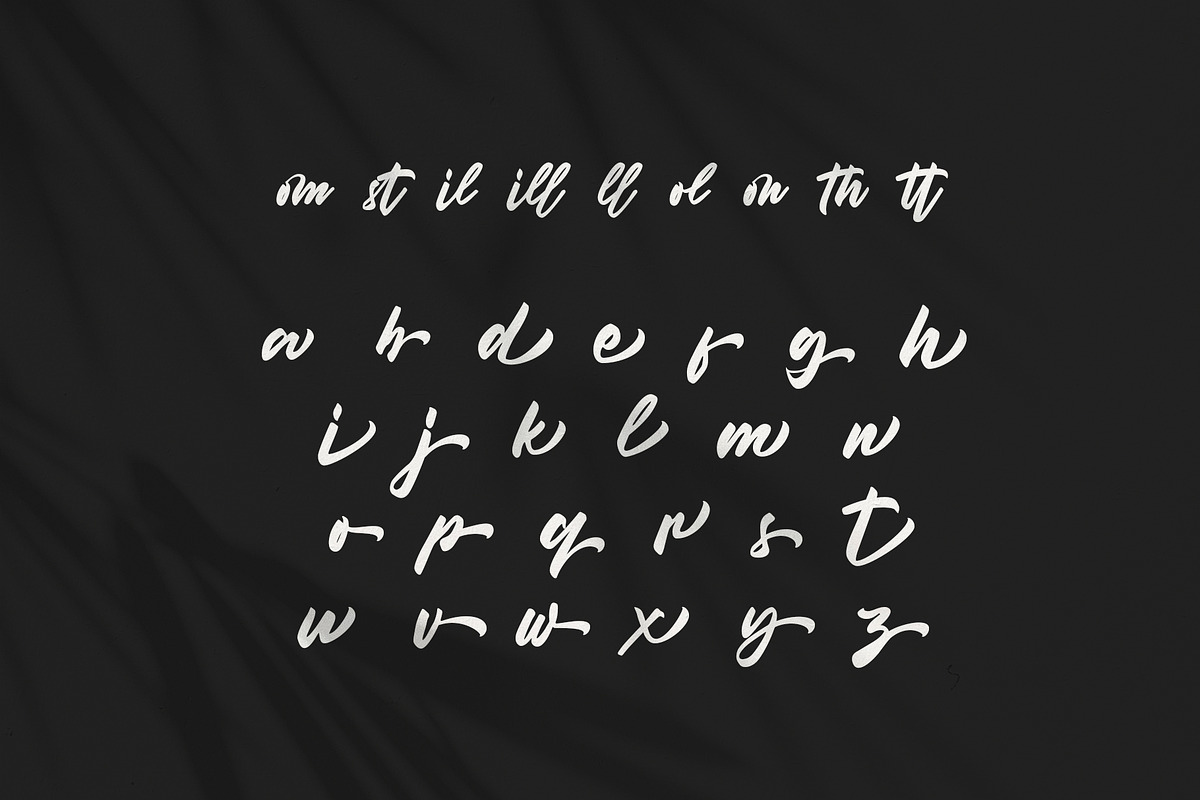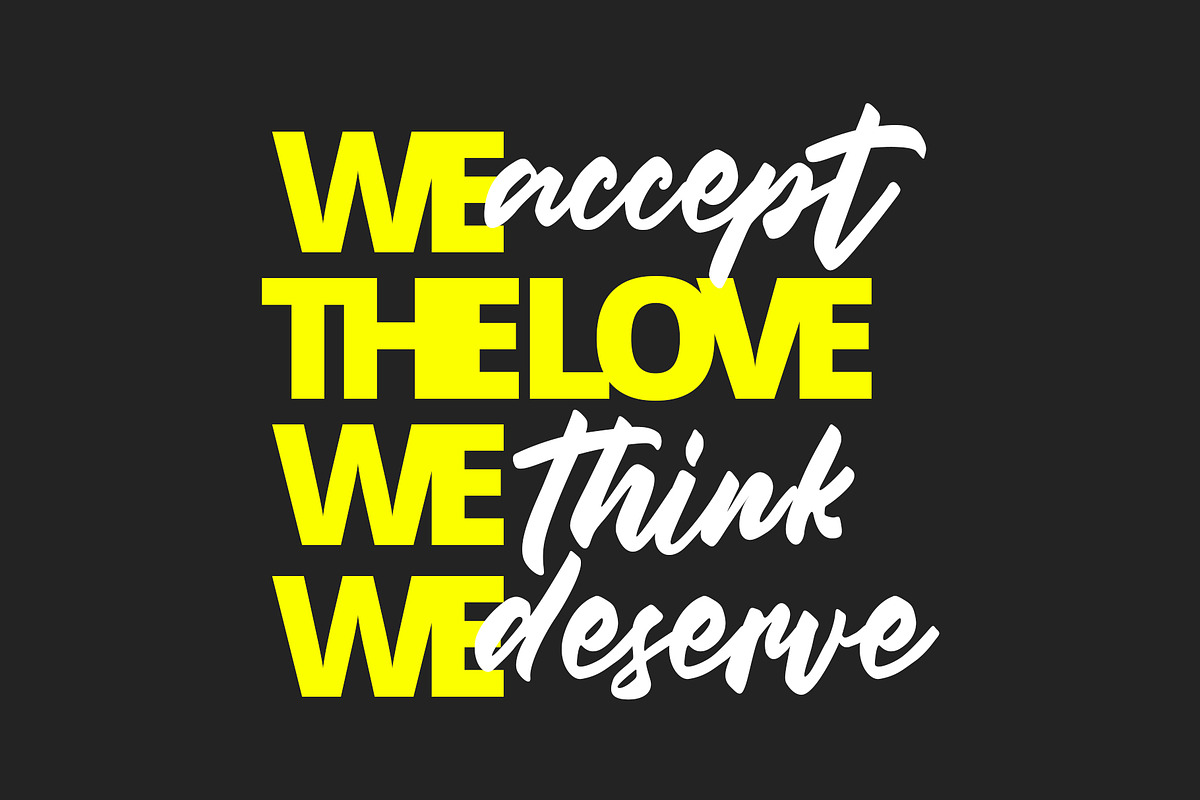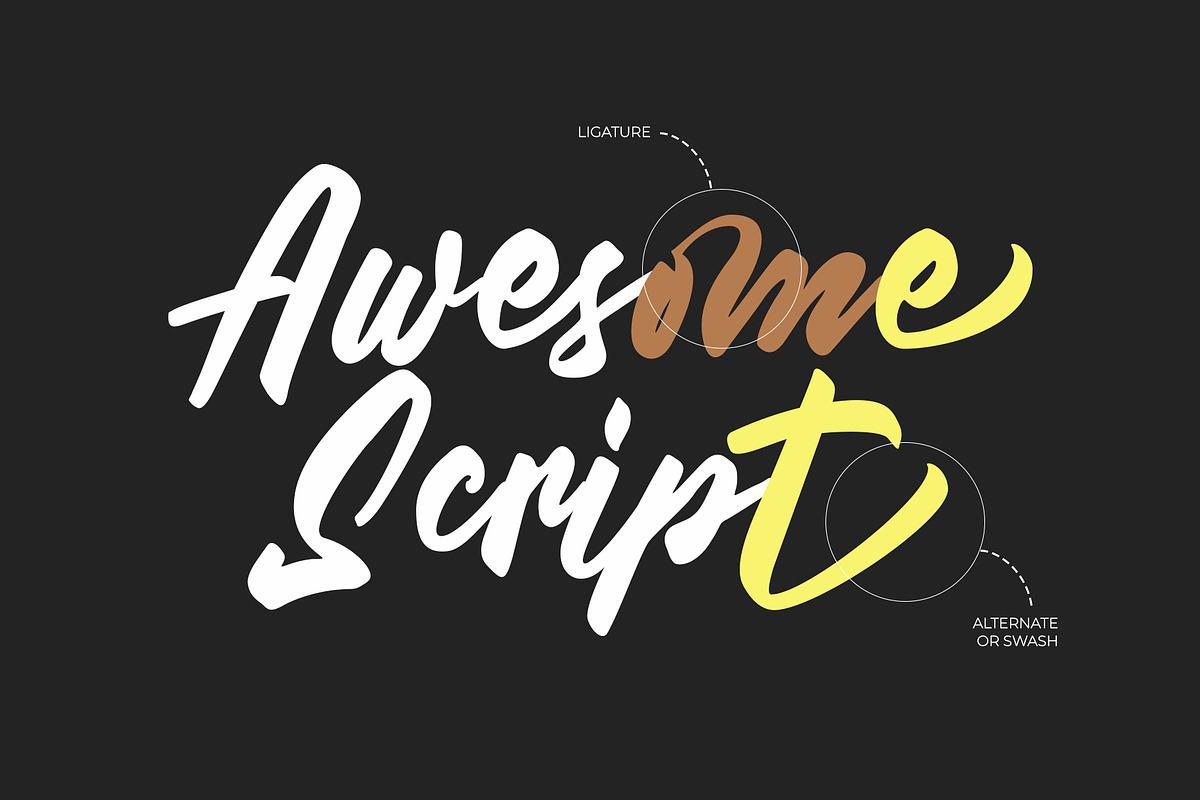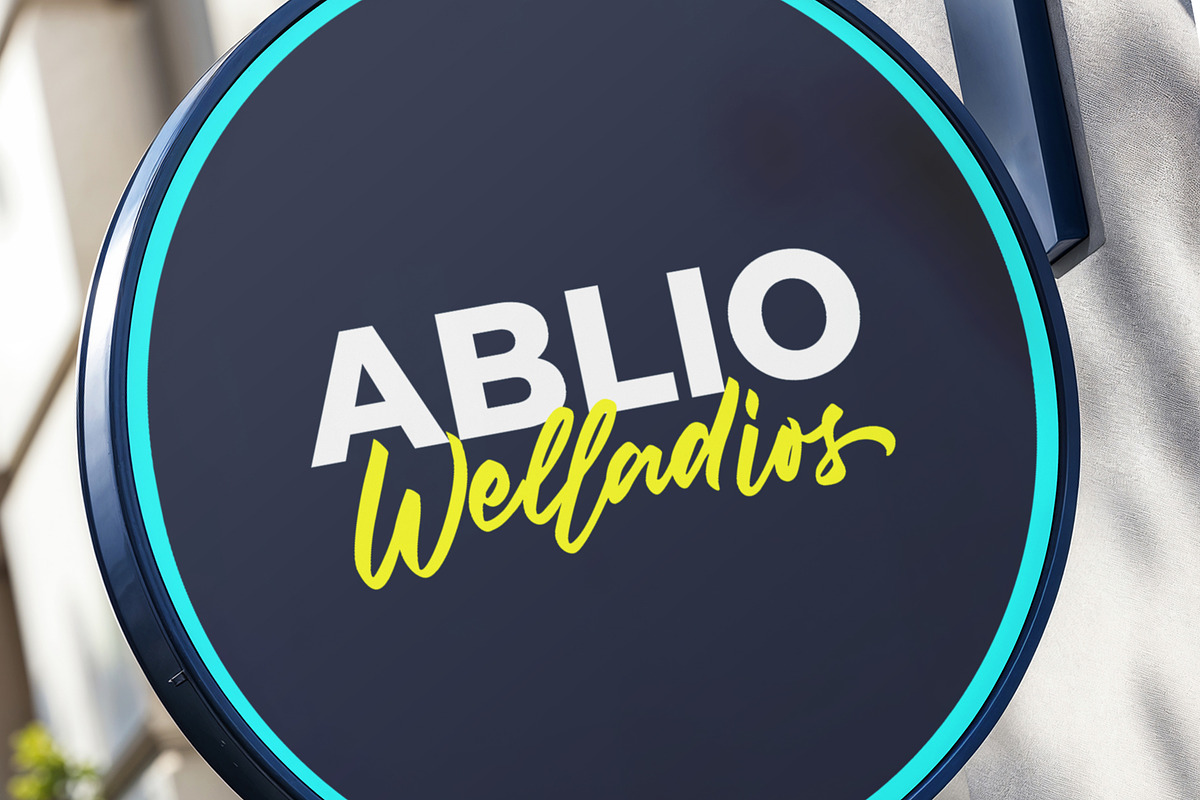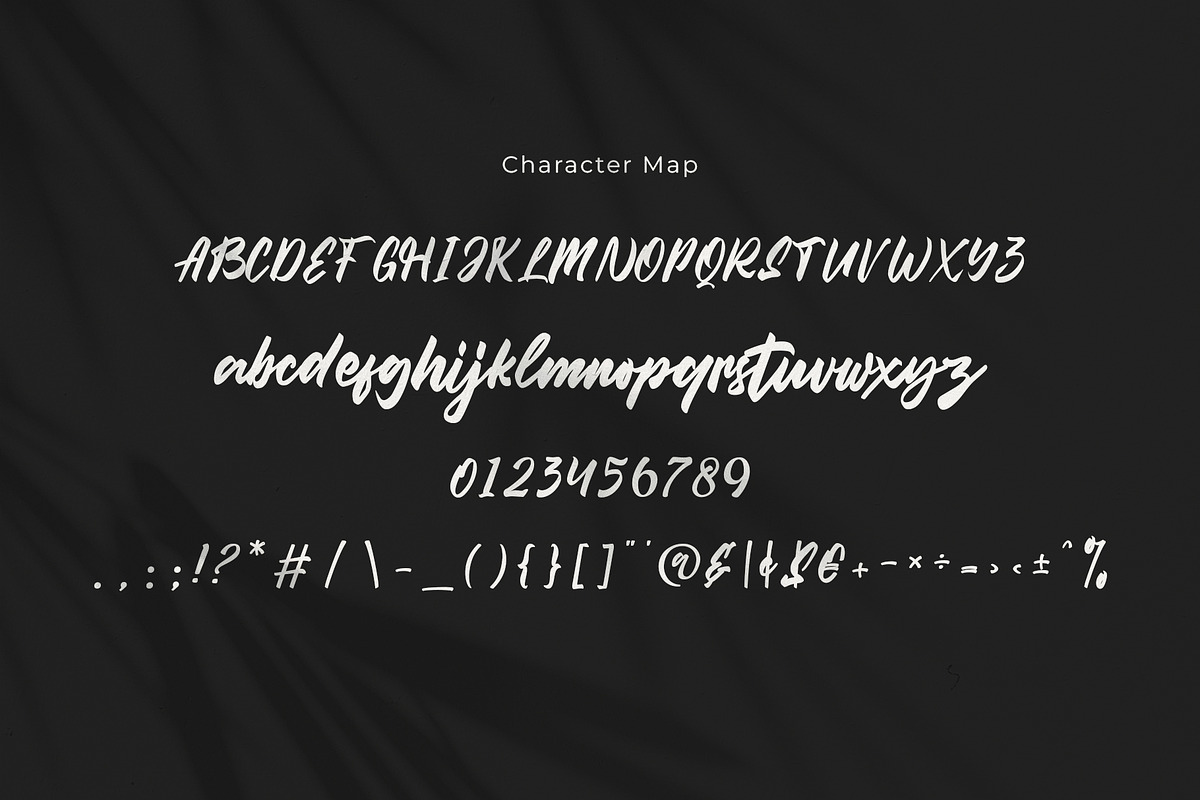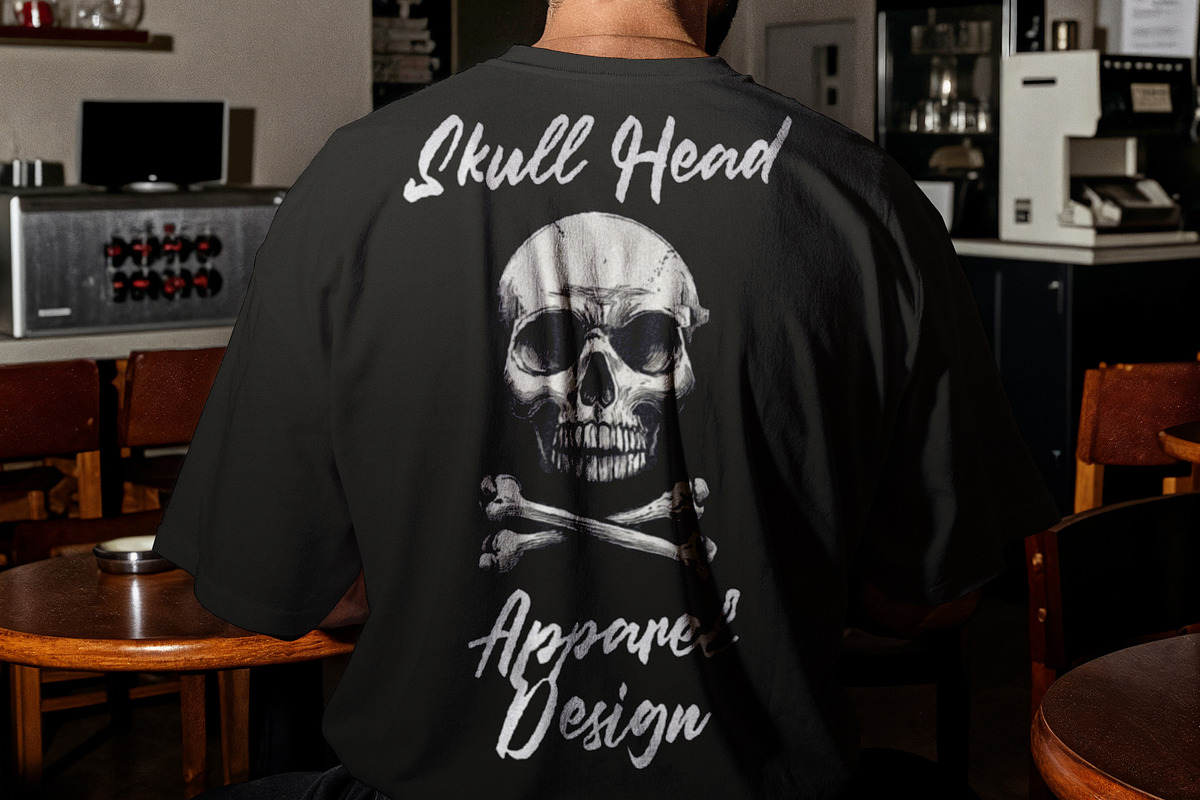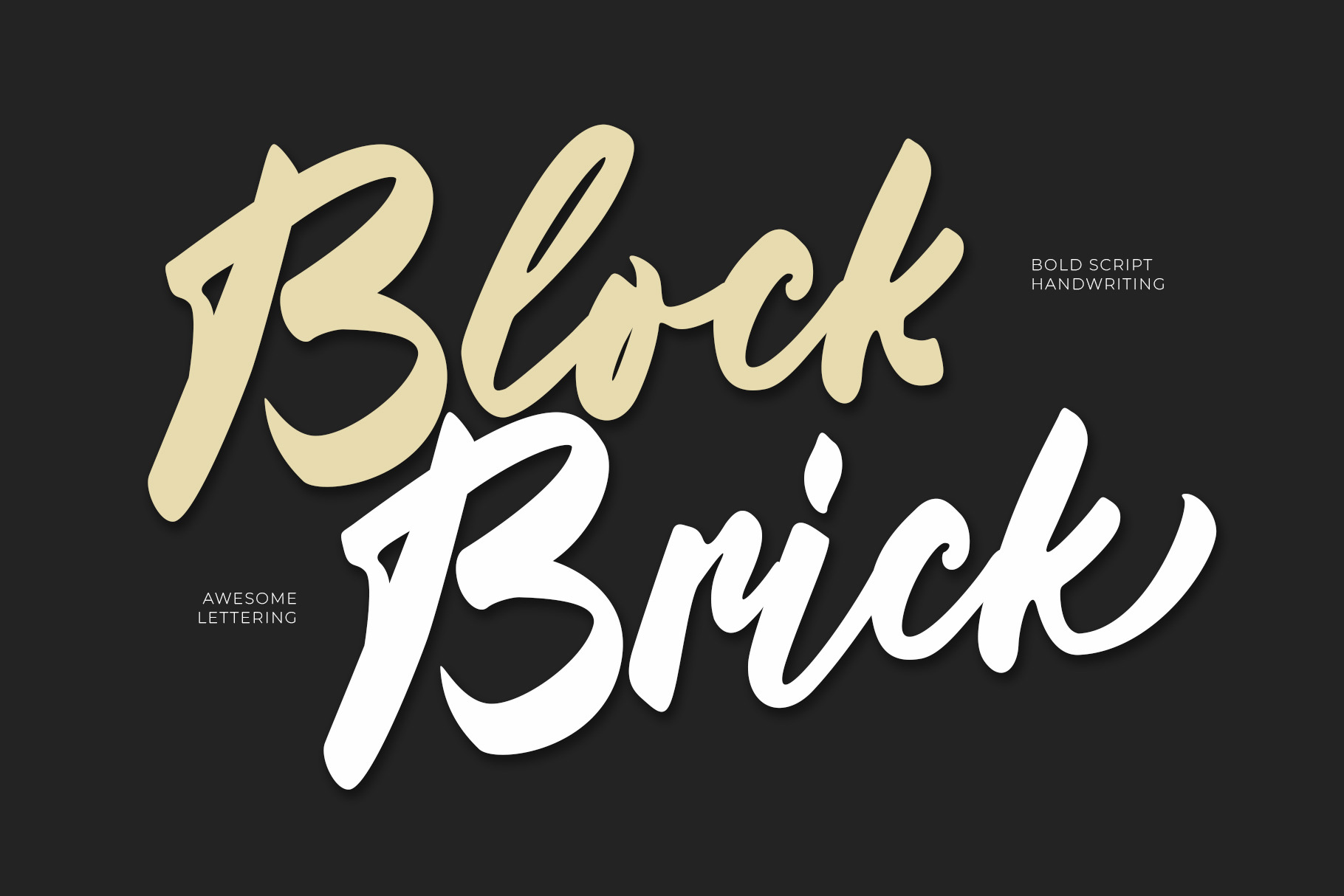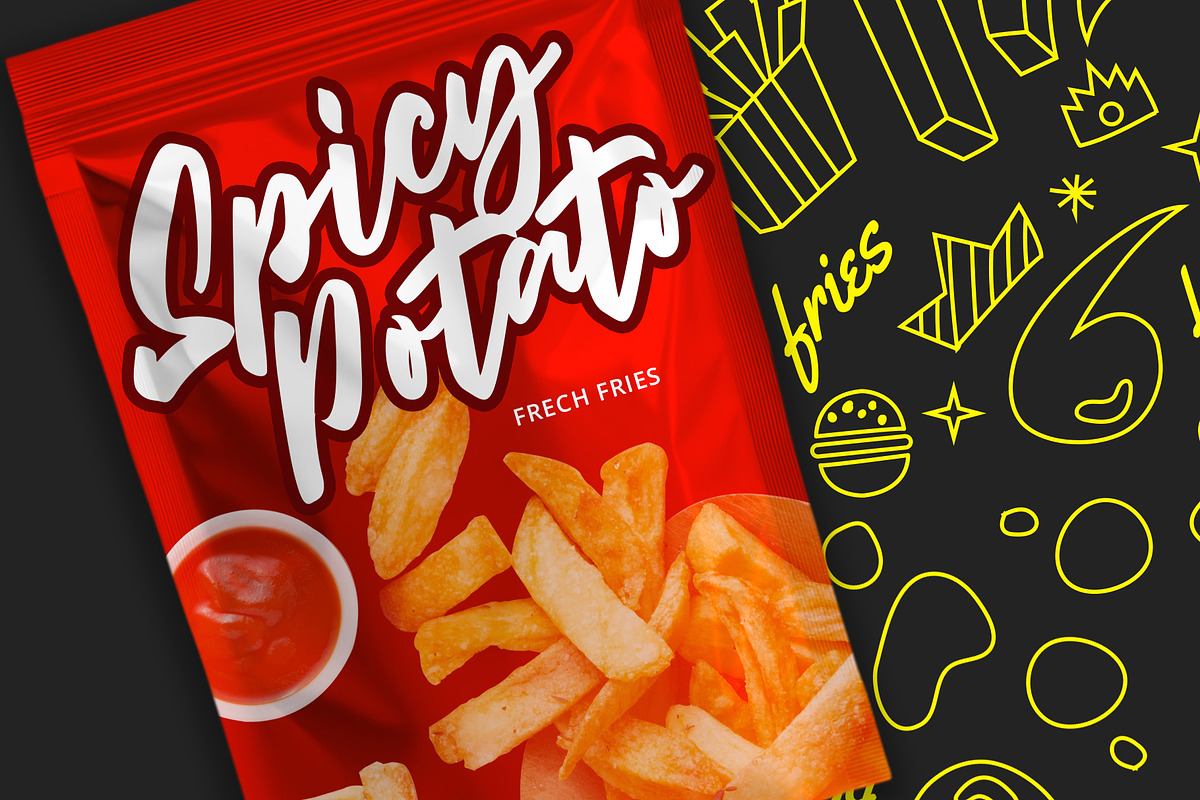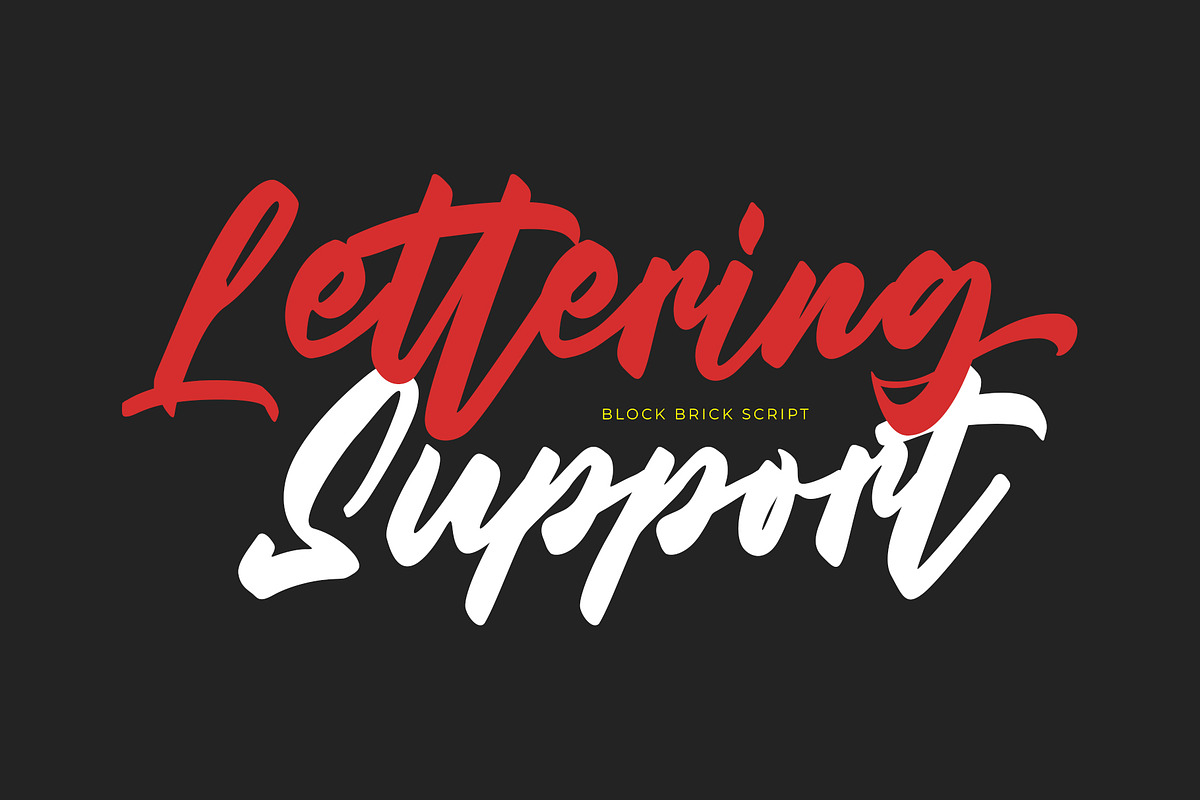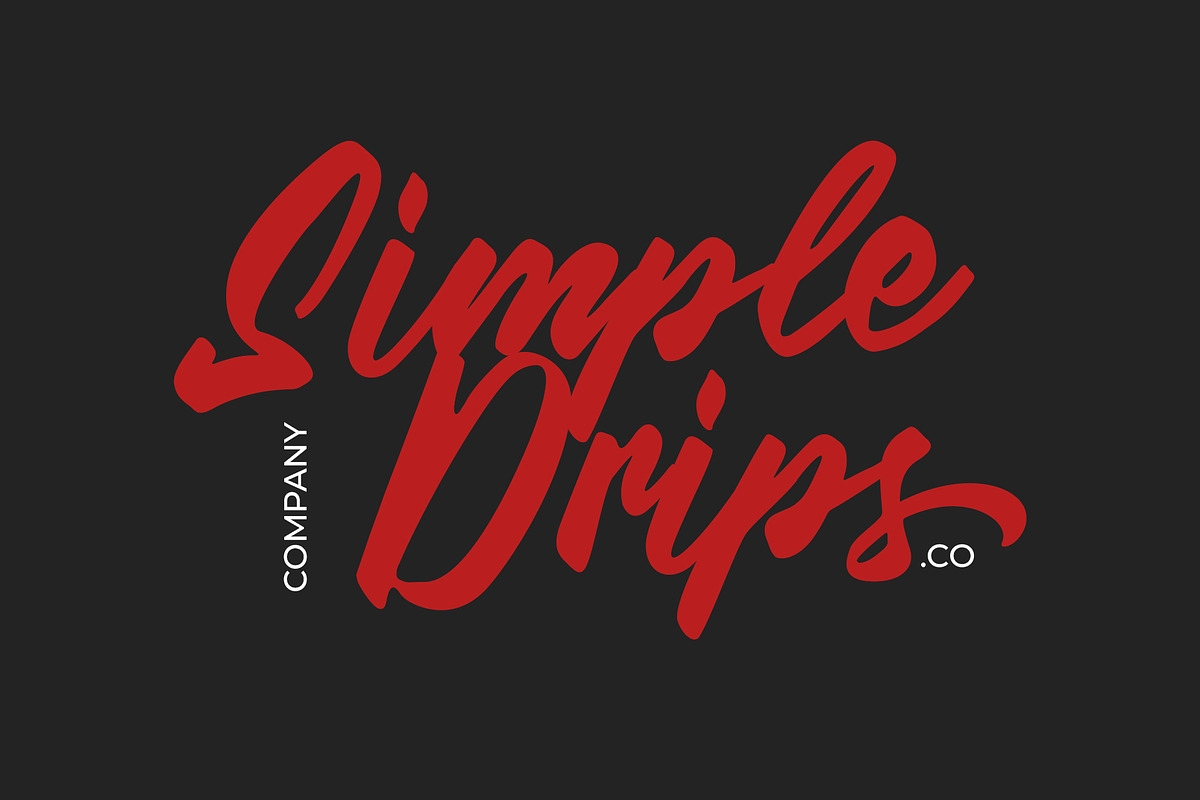
Block Brick Script Font
Say hello to Block Brick Script Font !!
This font was born from a lettering concept that has been transformed into a typeface. It’s highly versatile and fits perfectly with various design styles—from classic to modern. Block Brick Script is especially well-suited for apparel design, posters, gifts, typographic compositions on websites or landing pages, and much more.